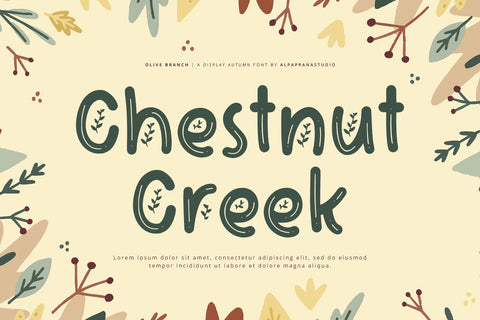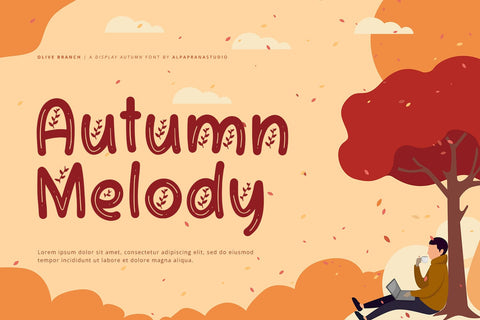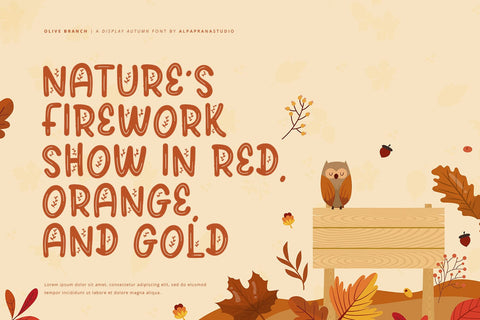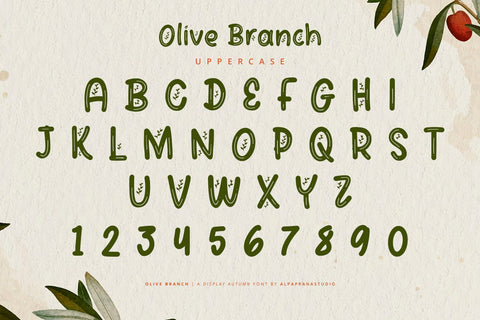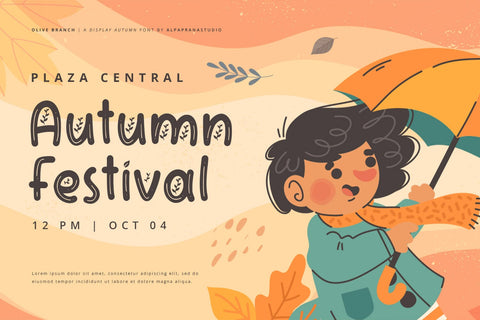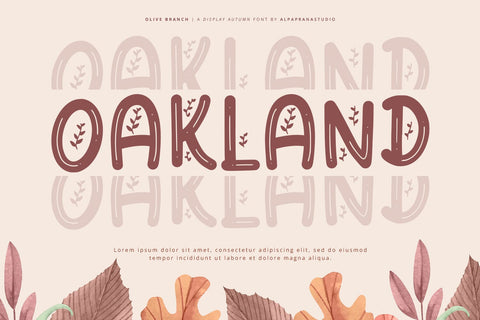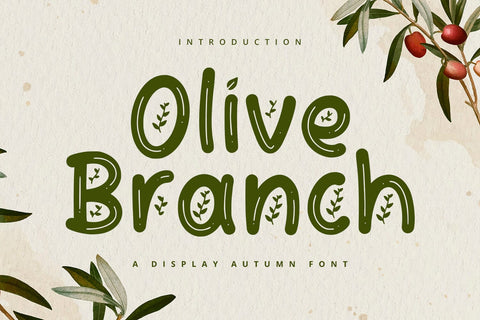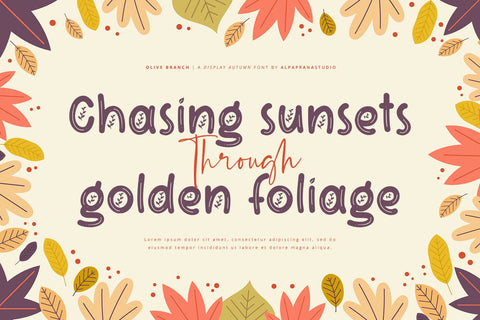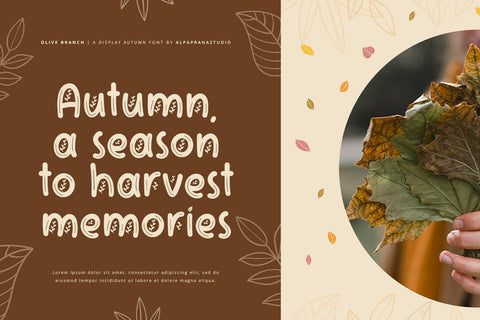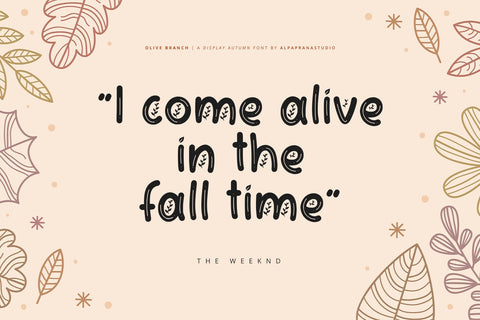
Olive Branch - Display Font
Olive Branchis a display font with modern and cute feels. It will be perfectly used for Branding, Logo Design, Lettering, Logotype, Clothing, Poster, magazine, packaging, posters, shopping bags, t-shirts, book covers, photography, special events and other design project.